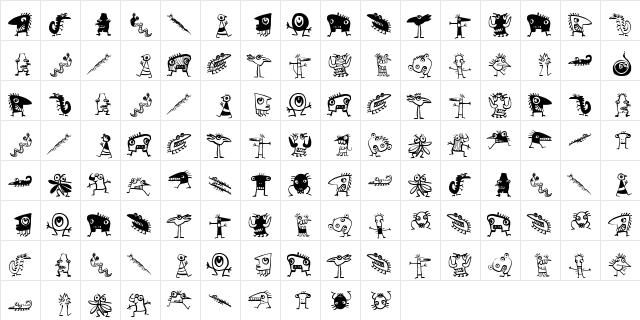
Wacominals Regular
Design Context for Wacominals Typeface
Wacominals is a composed and adaptable typeface that performs quietly and consistently across a wide range of design contexts.